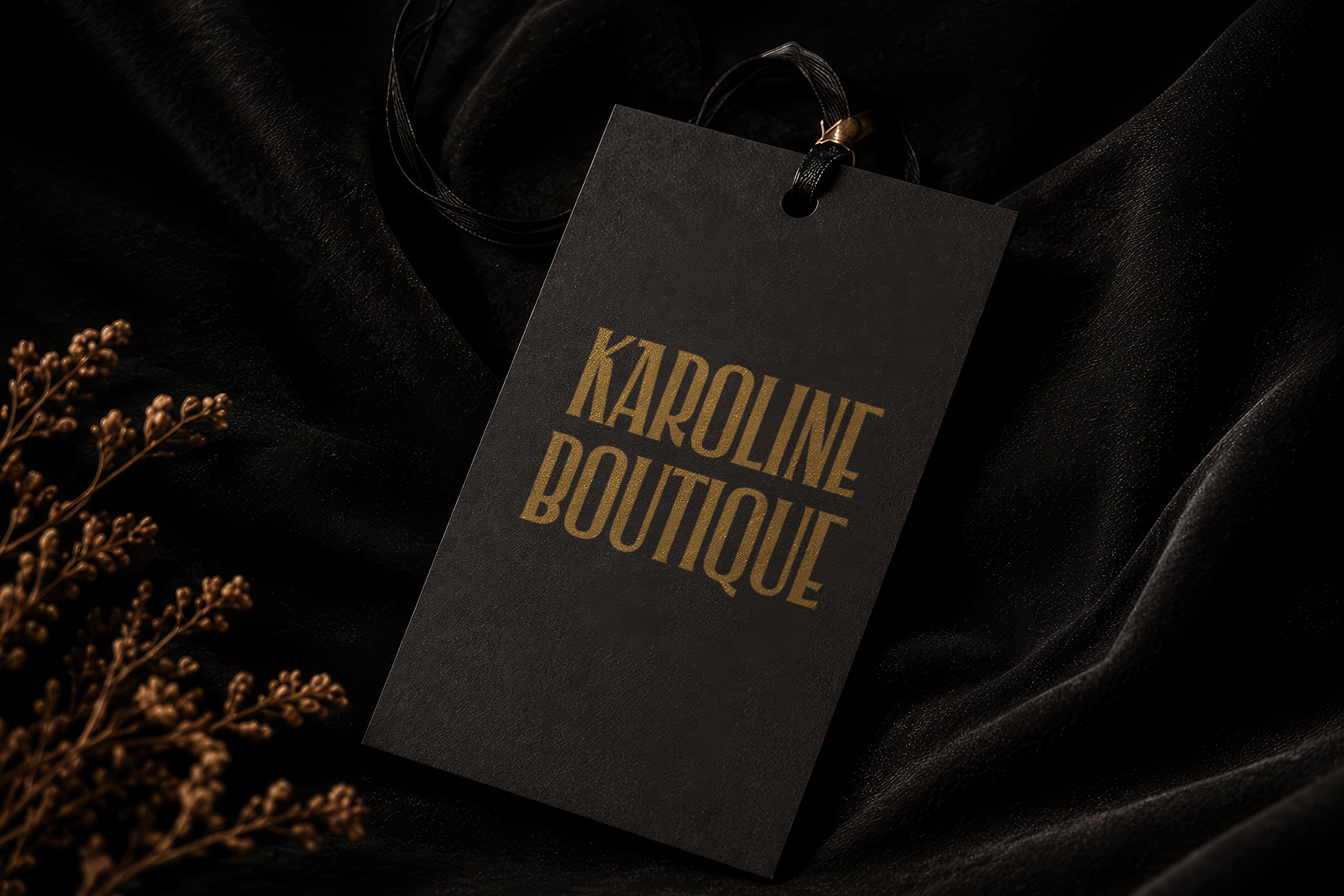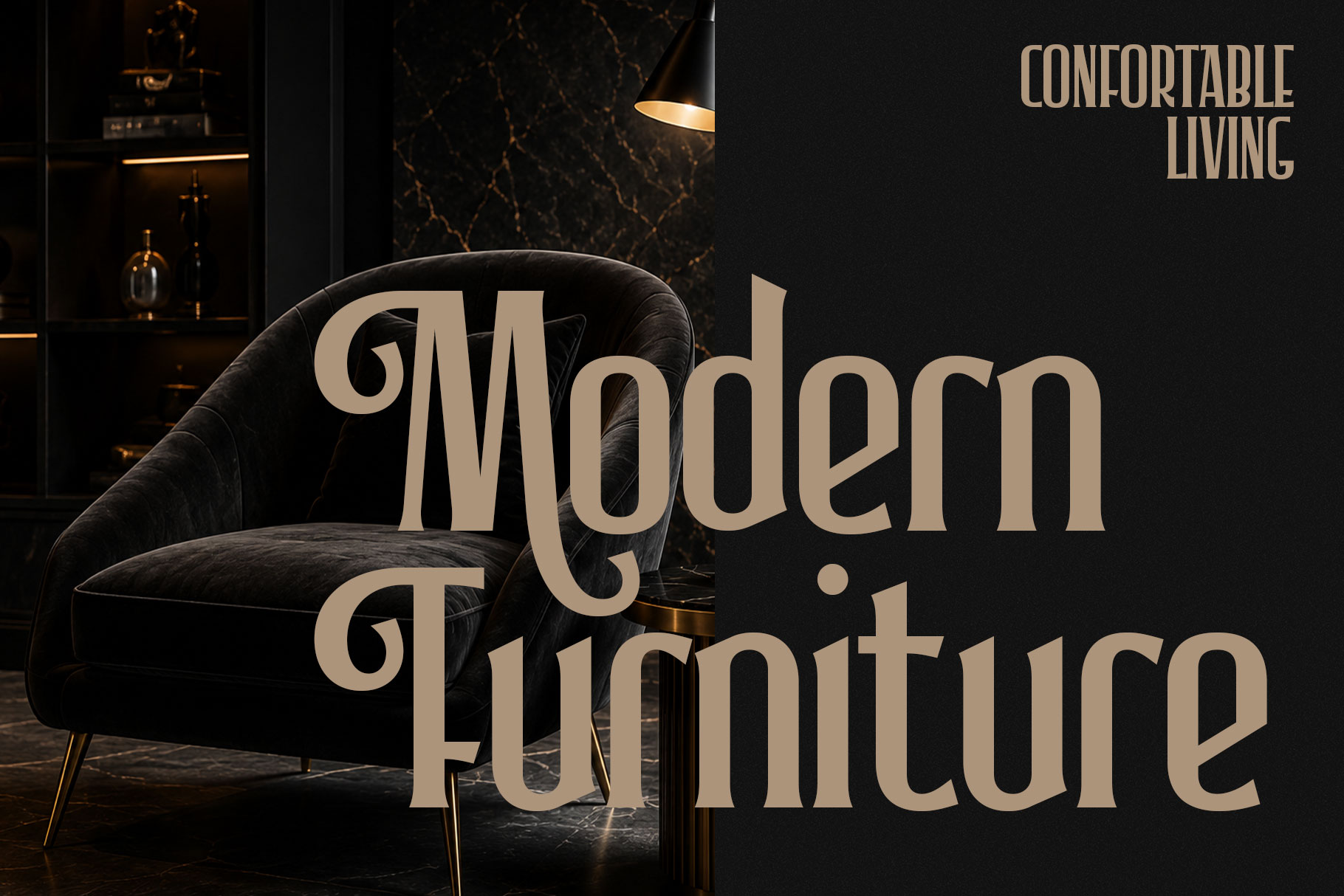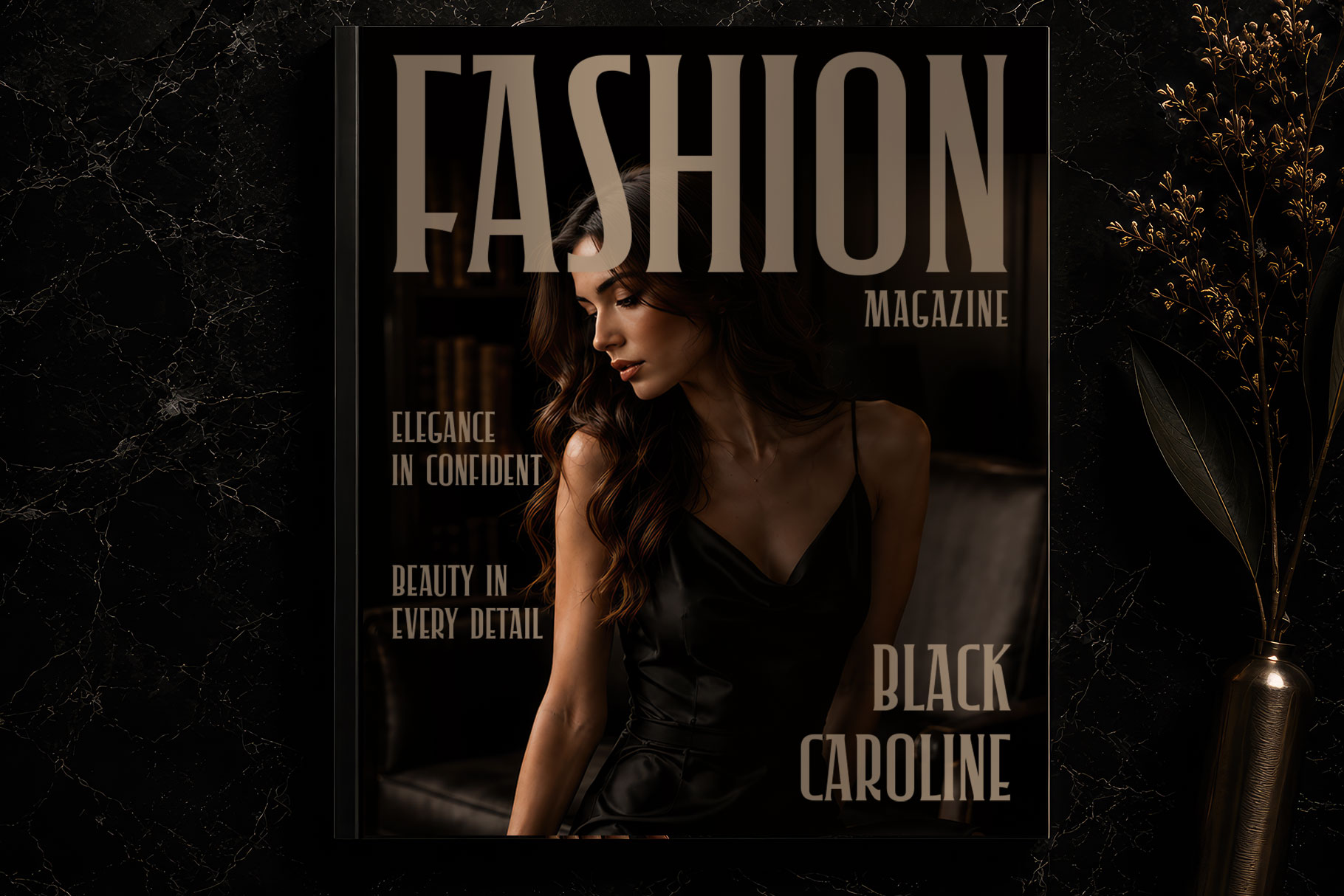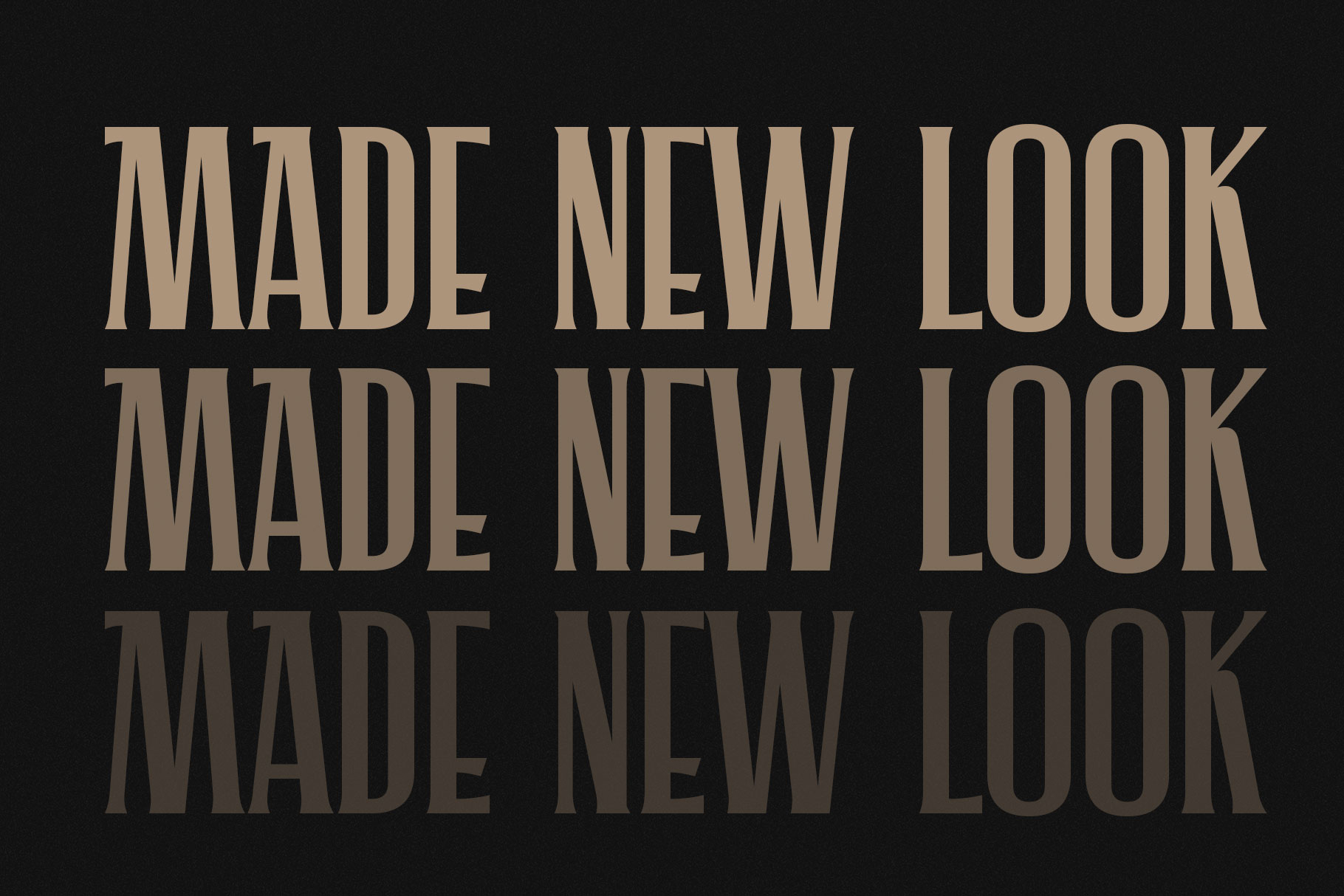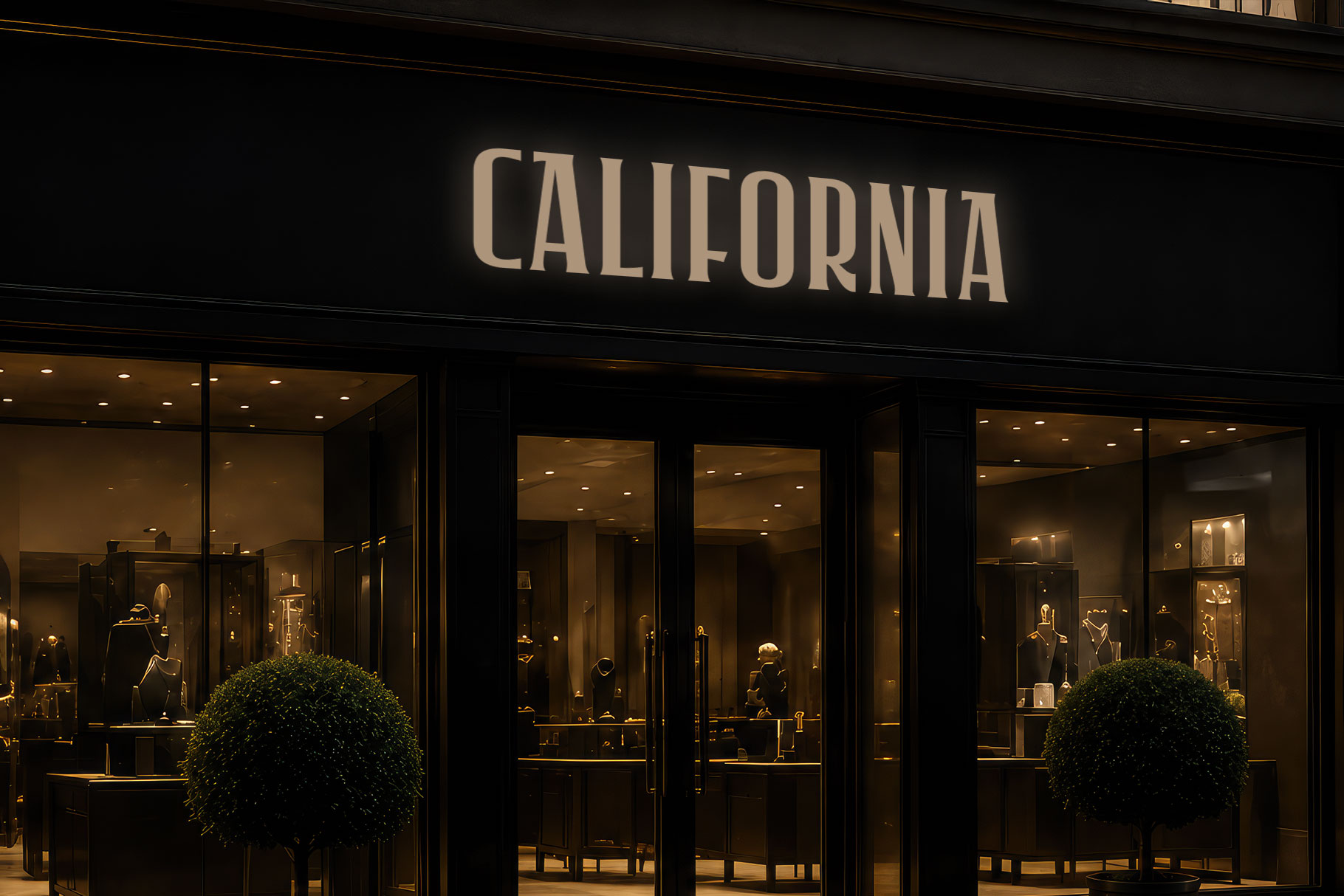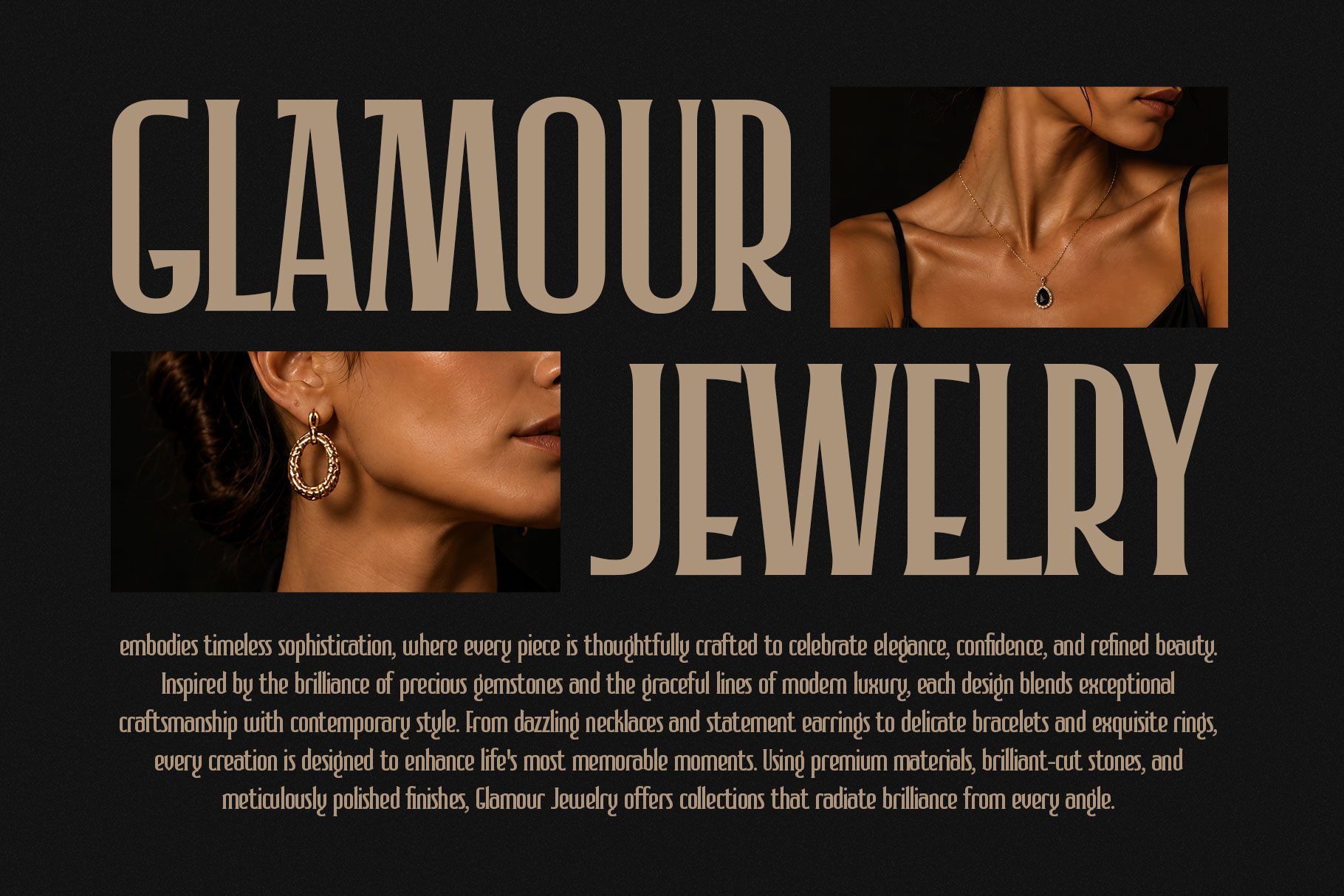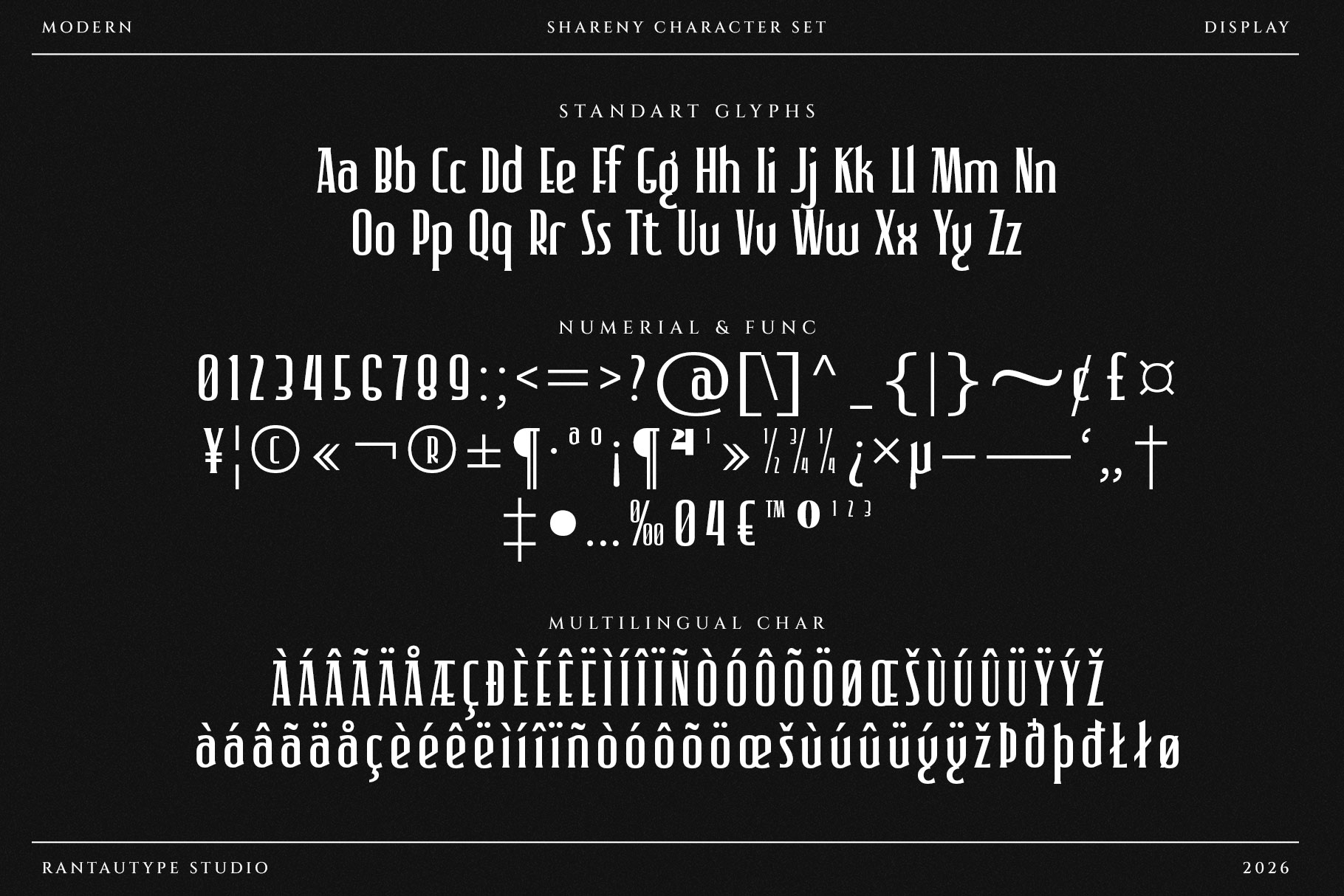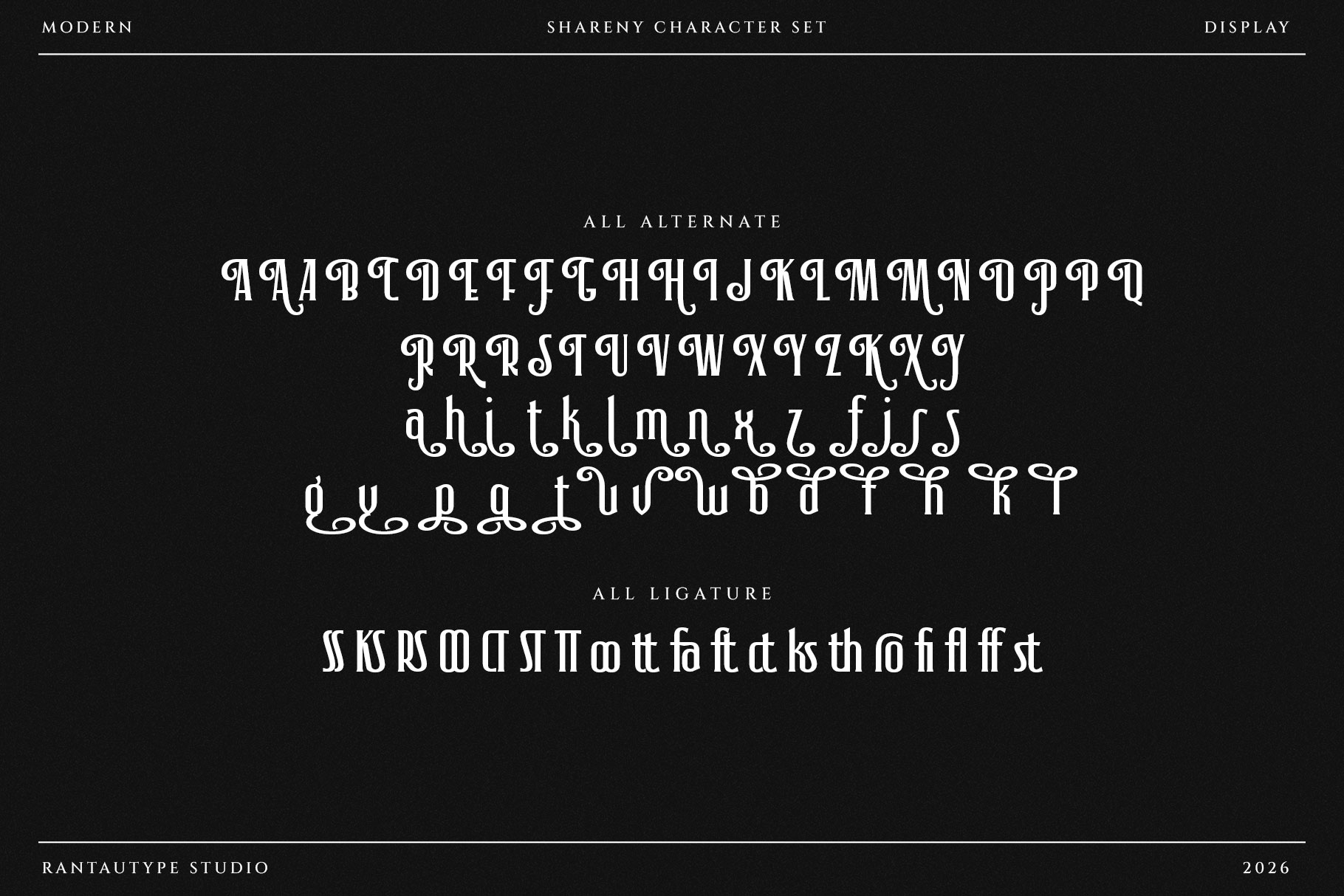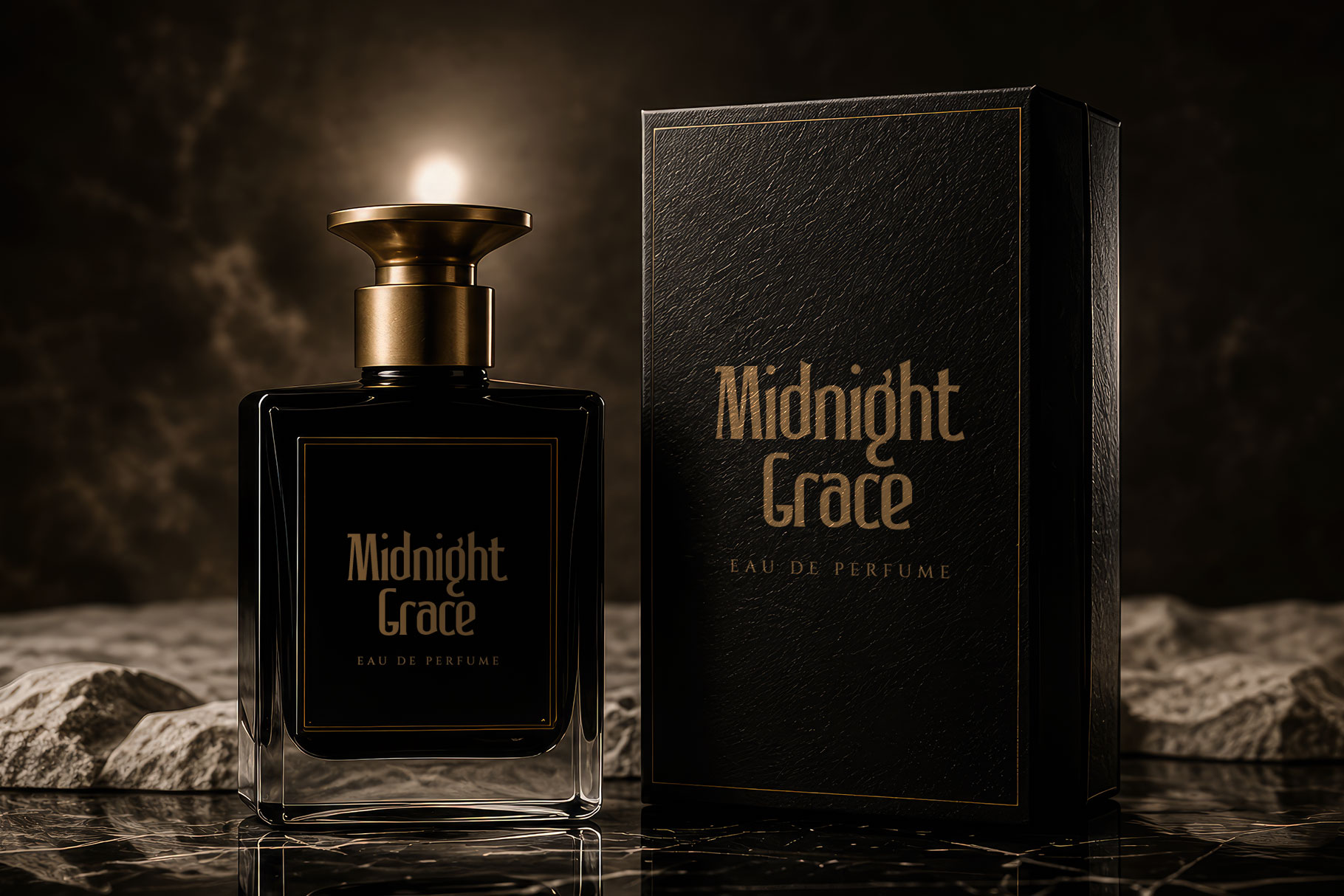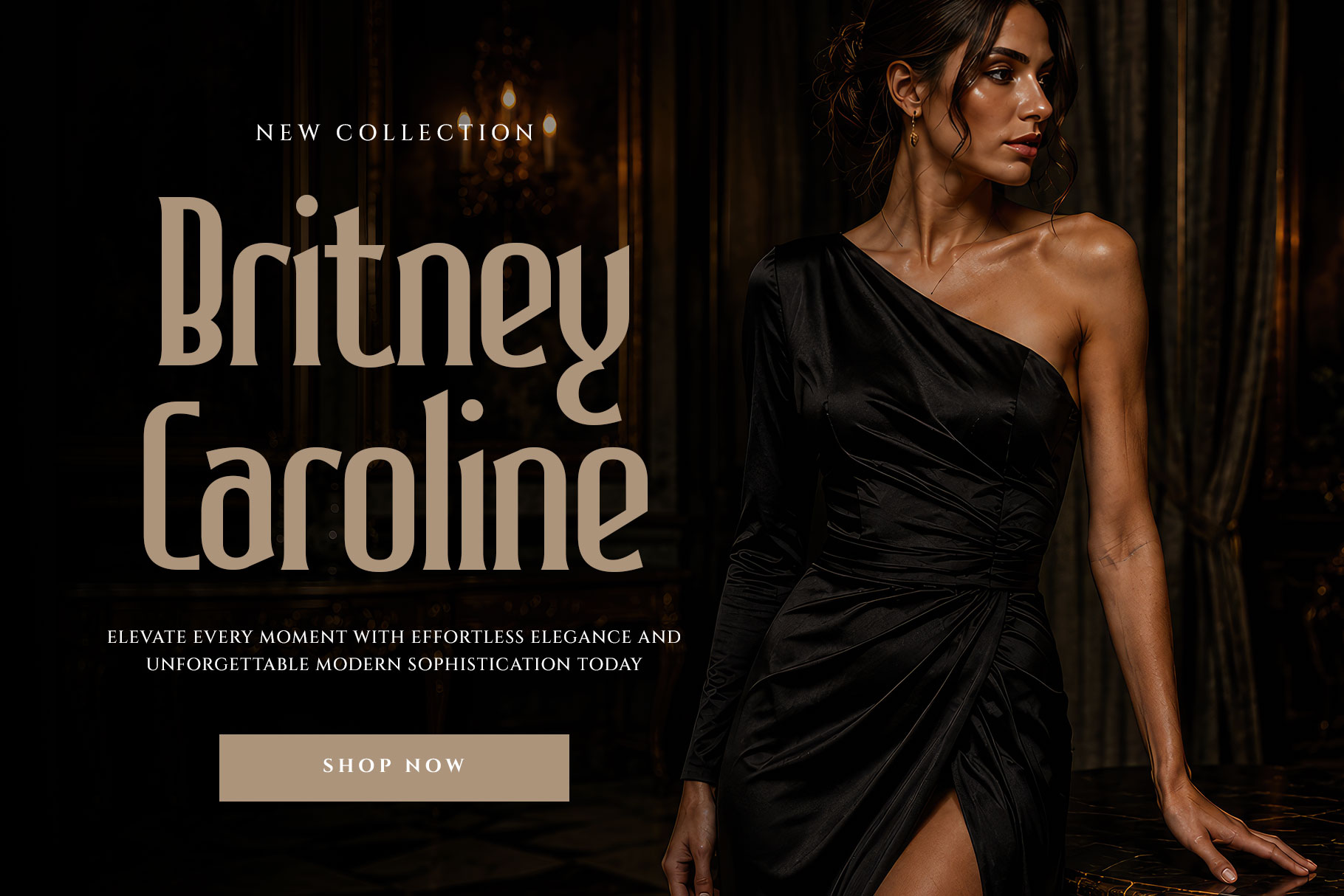
Shareny is is a sophisticated high-contrast display serif that blends timeless elegance with contemporary refinement. Inspired by classic editorial typography and luxury branding, this typeface features graceful curves. Shareny a perfectly choice for any creative endeavor, creating, modern, lifestyle design such as logotype, title, cover, branding, invitations, wedding designs, display and magazine, social media posts, advertisements, printed quotes, product packaging, corporate brand, product designs, labels, photography, watermarks, special events and any other project with elegant touch.
Shareny Modern Display Serif Font